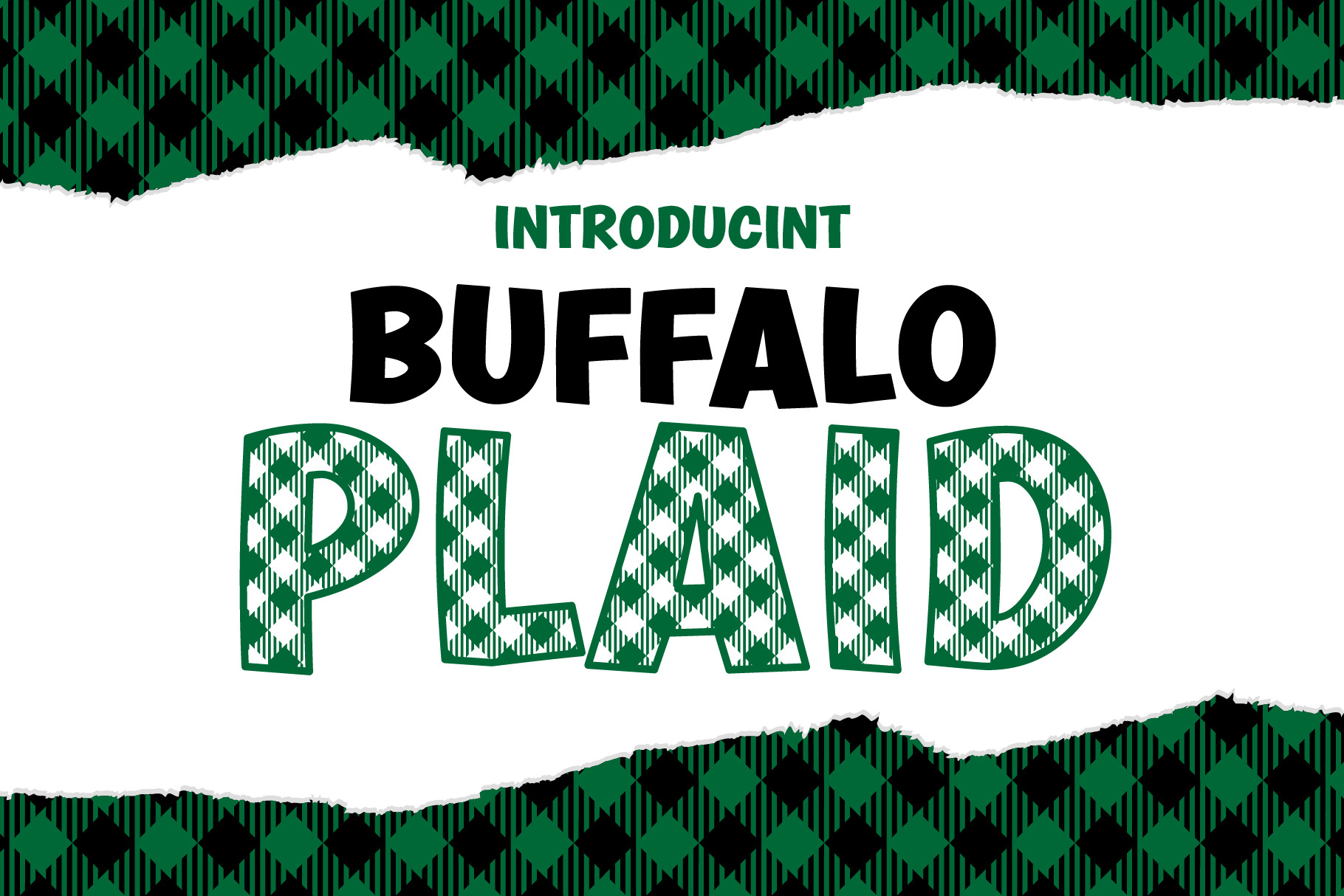
Buffalo Plaid is a cool, and friendly decorative font. It is perfect for Xmas projects, fall projects, blog posts, logos, branding, ads, invitations, greeting cards, planners, photo albums, decorations, and more. It will be a wonderful asset to your fonts library as it has the potential to enhance any creation. Add it to any of your designs, and enjoy the results!